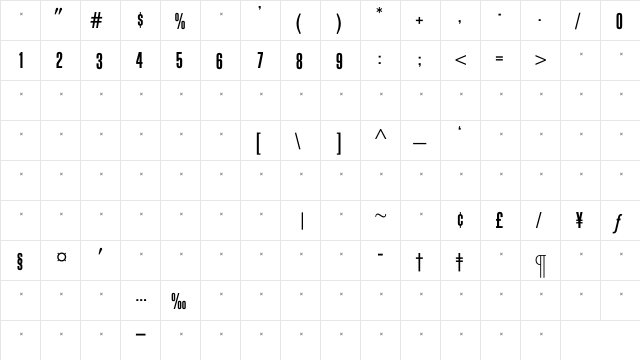
BlockGothicDemiExtraCondTab Regular
Design Context for BlockGothicDemiExtraCondTab Typeface
BlockGothicDemiExtraCondTab has the quiet confidence of well-executed sans-serif typography: versatile, unobtrusive, and dependable at any size. Its narrow stance lets it pack a punch even in space-constrained designs.
Font Pairing: Works well alongside a characterful serif or display font that can carry the expressive load while BlockGothicDemiExtraCondTab handles the functional copy.
Pro Tip: Try BlockGothicDemiExtraCondTab in all-caps with moderate tracking for navigation and label copy — it performs well in systematic UI contexts.